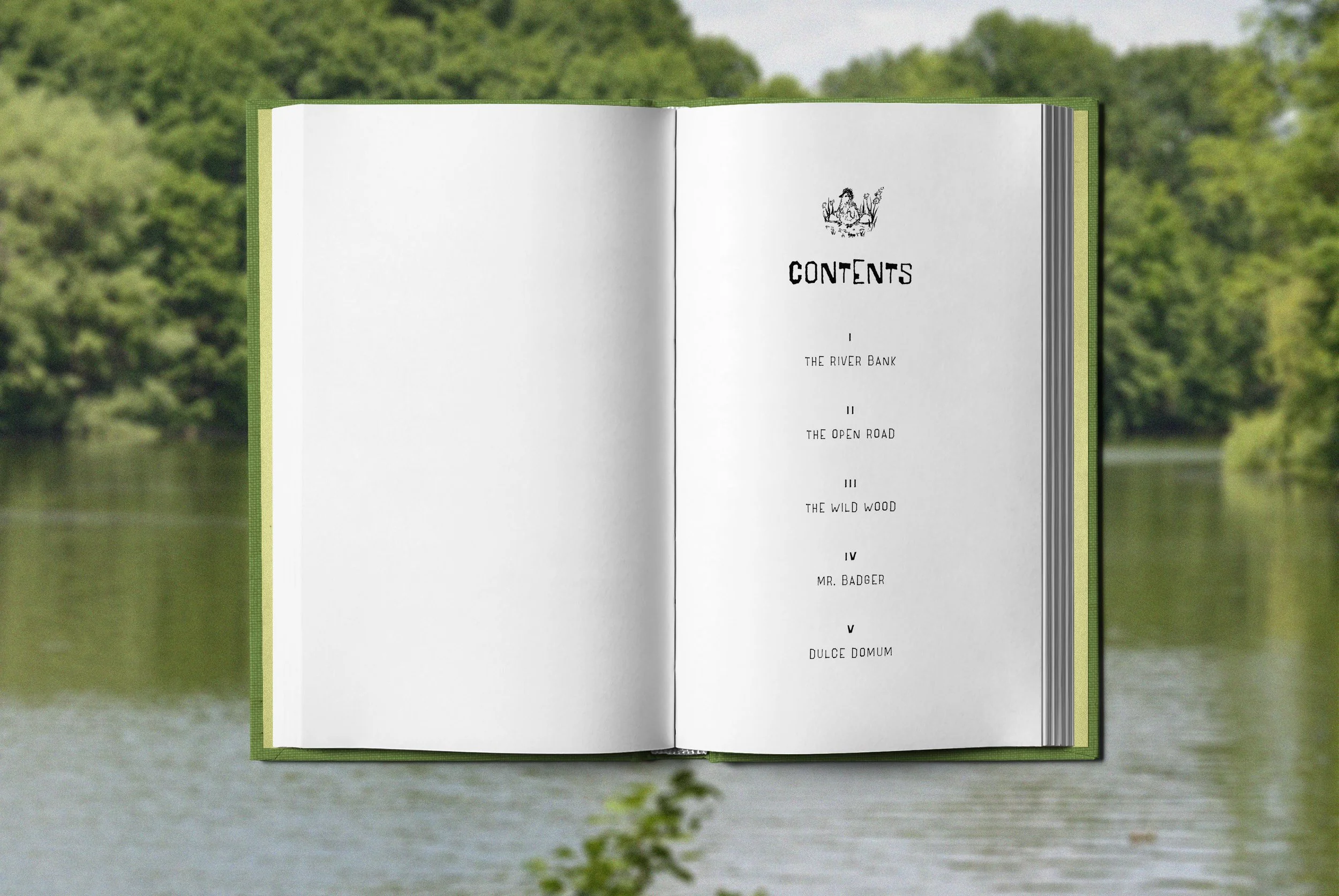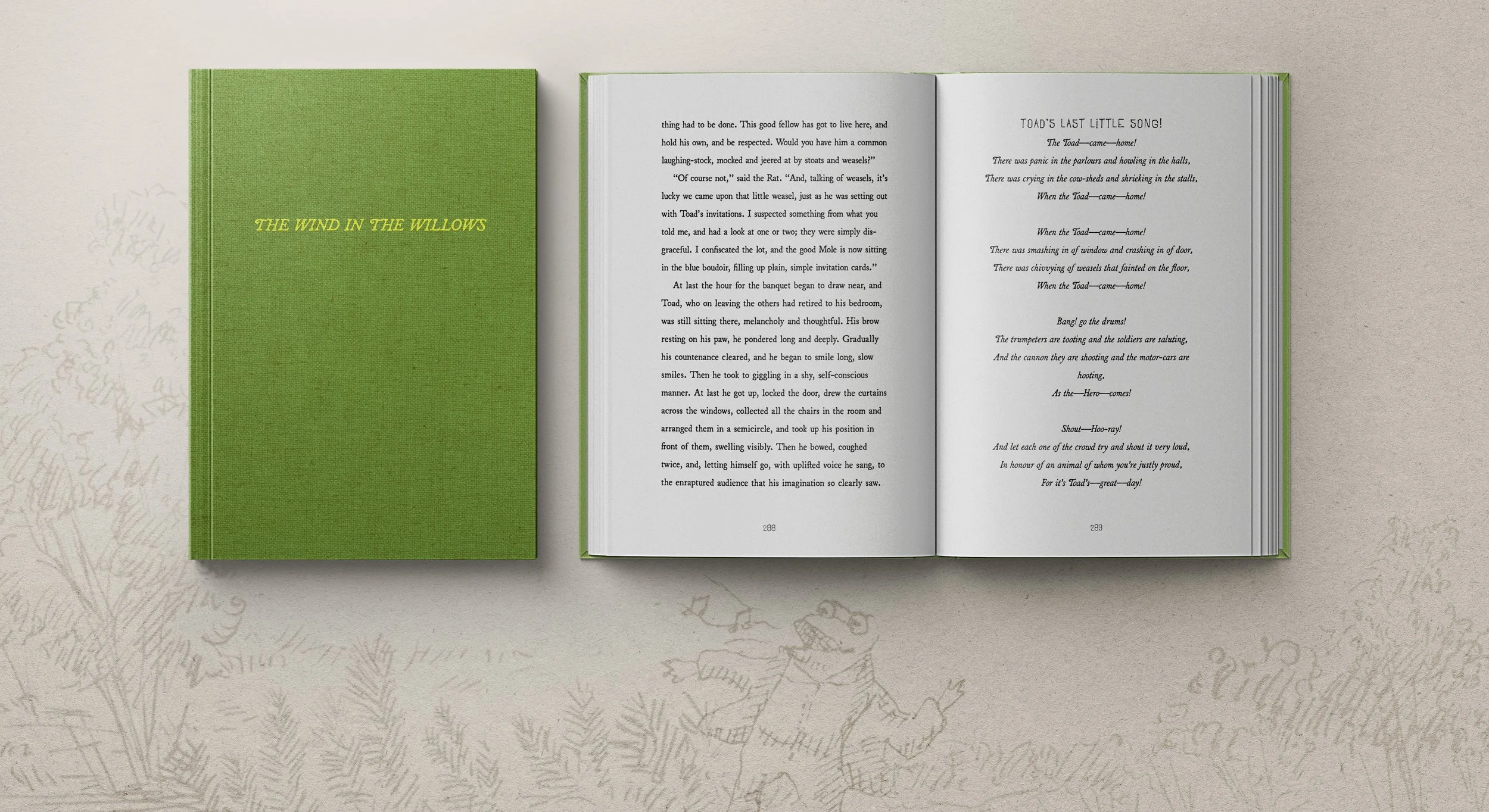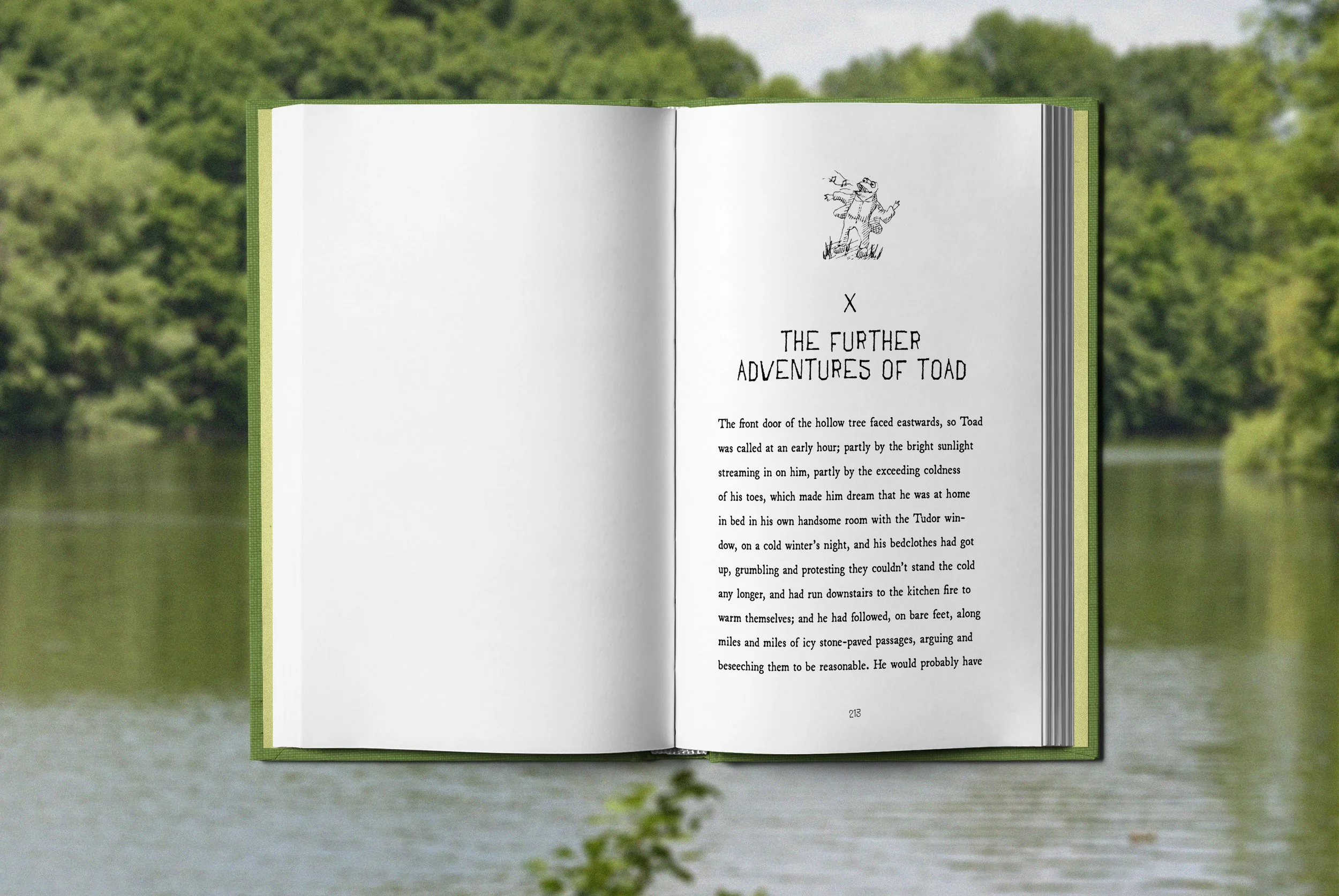
The Wind in the Willows
The Wind in the Willows is a children’s classic about the nature of friendship and adventures that come with it. Upon listening to the audiobook, I found that despite the classic being characterized as a “children’s book,” the imagery and prose was very well-written, and even advanced. As such, I wanted to approach the redesign in a contemporary manner in an attempt to make the story appealing for people of all ages.
In my design of the book’s interior and exterior, I wanted to encapsulate the whimsical and nostalgic story while creating something visually striking. The exterior provides a playful and welcoming display, with overlapping typeface and artwork creating an inviting setting for the readers to delve into. Hand drawn illustrations ornament the chapter openers, allowing small glimpses into the stories to be told. From the cover to the pages, the overall design aims to celebrate the spirit of adventure and friendship, offering a warm welcome into the world beyond the riverbank.
Type
14/16 Broadsheet Regular × 26p3